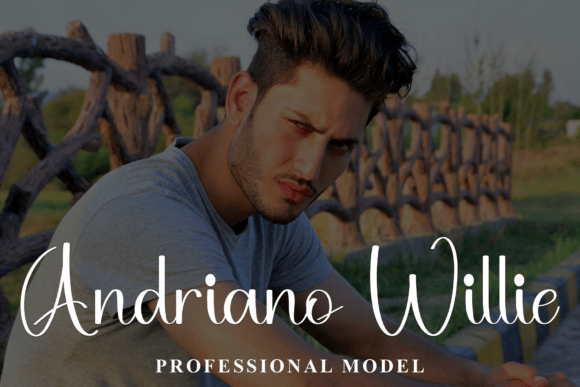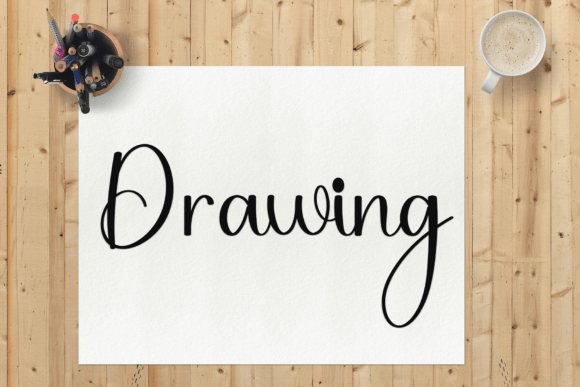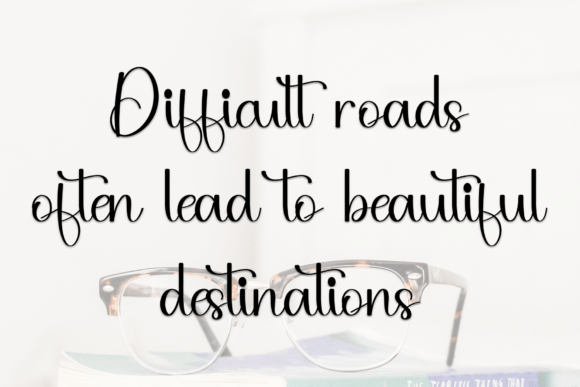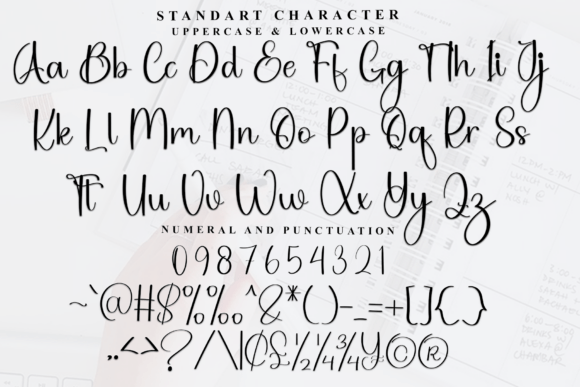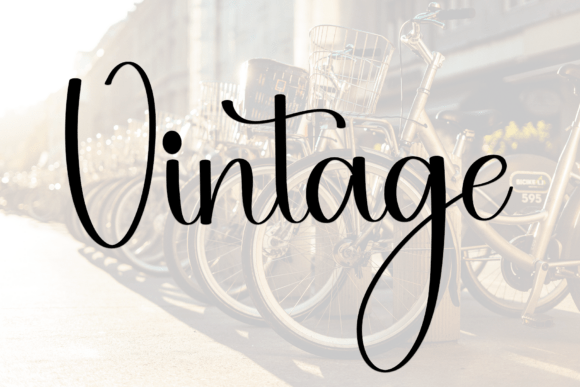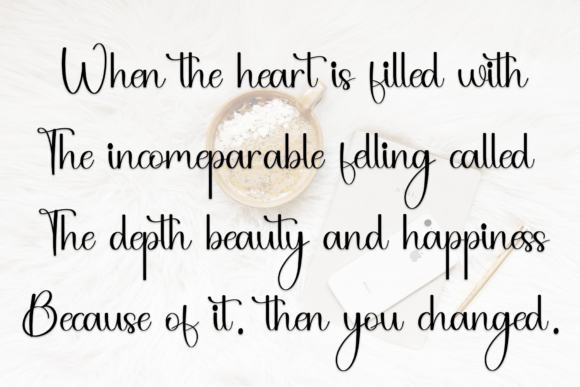
The Bulshitt Font: A Beautifully Flowing Script Font for Creative Projects
I’ll never forget the moment I stumbled upon the Bulshitt font. I was working on a wedding design project, and my client had a very specific vision in mind – elegant, yet playful, with a touch of whimsy. I had spent hours scouring the internet for the perfect font, but nothing seemed quite right. That was until I discovered Bulshitt. Its smooth curves and natural rhythm immediately caught my eye, and I knew I had found the one.
I’ve had the pleasure of working with Bulshitt font for several projects now, and here’s what I think:
• ✨ Smooth curves and natural rhythm: Bulshitt’s flowing script design makes it perfect for creating elegant and sophisticated designs.
• ✅ Versatile: This font is suitable for both formal and playful design needs, making it a great addition to any designer’s toolkit.
• ✅ Easy to read: Despite its elegant design, Bulshitt is surprisingly easy to read, even at smaller font sizes.
Of course, no font is perfect, and Bulshitt has a few quirks:
• 🤔 Limited use of bold weights: While Bulshitt has a range of weights, the bold weights can be a bit overpowering. Use them sparingly for maximum impact.
• ⚠️ Glyph limitations: Some users have reported issues with certain glyphs, such as the euro symbol. However, these limitations are relatively rare and can often be worked around.
The Story Behind Bulshitt Font
According to its creators, Bulshitt font was inspired by the flowing script styles of the early 20th century. The designers wanted to create a font that captured the essence of hand-lettered charm, while still being versatile and easy to use. The result is a beautifully flowing script font that’s perfect for a wide range of design projects.
What is Bulshitt font best suited for? Bulshitt font is ideal for designs that need a touch of elegance and sophistication, such as wedding designs, logos, and quotes.
Is Bulshitt font easy to read? Yes, despite its elegant design, Bulshitt font is surprisingly easy to read, even at smaller font sizes.
Does Bulshitt font support OpenType features? Yes, Bulshitt font supports OpenType features, including stylistic alternates and glyphs.